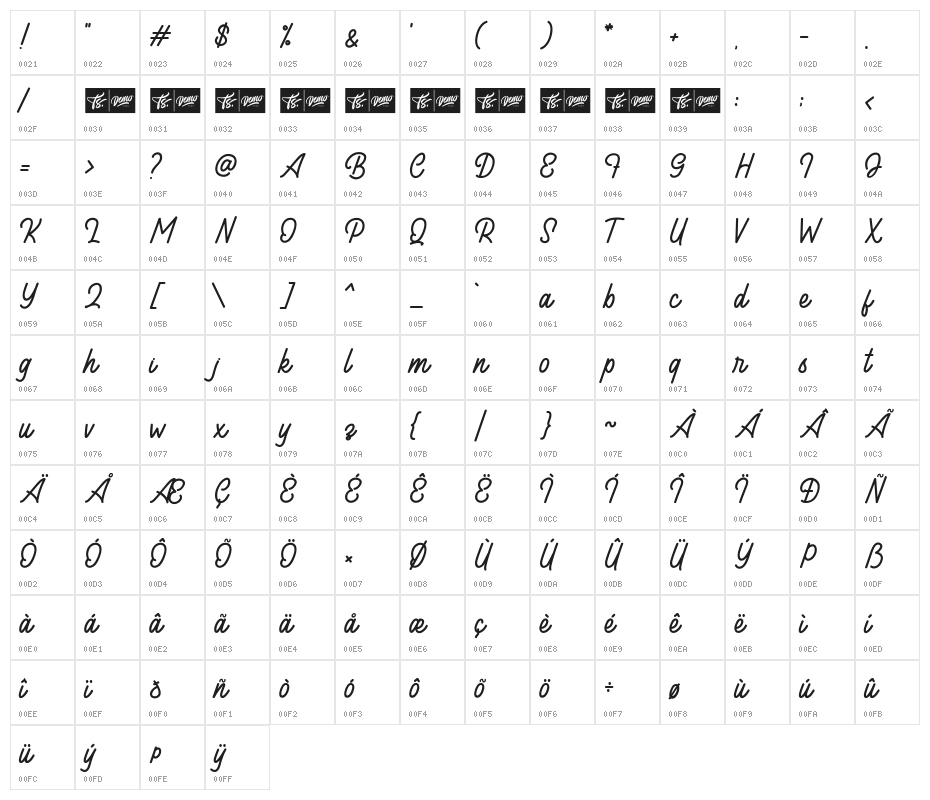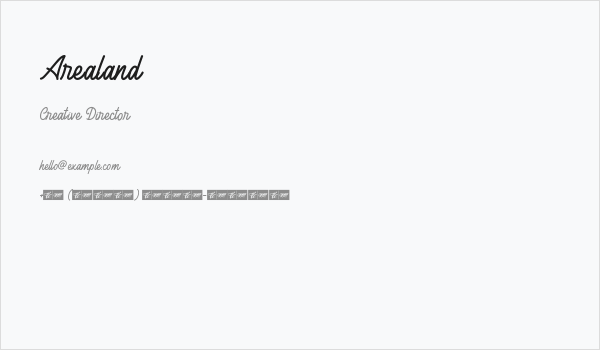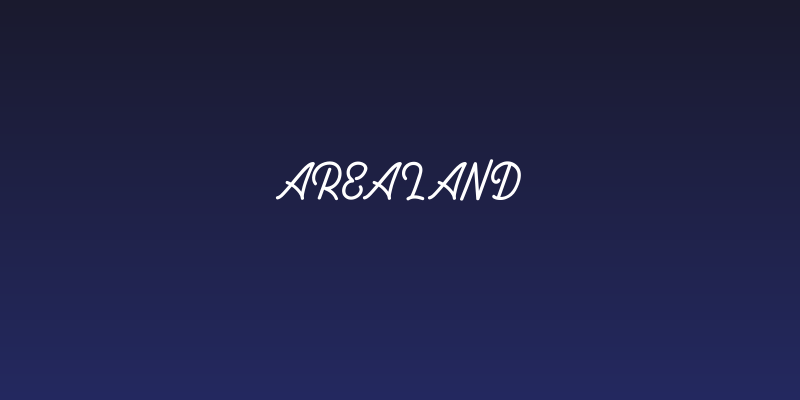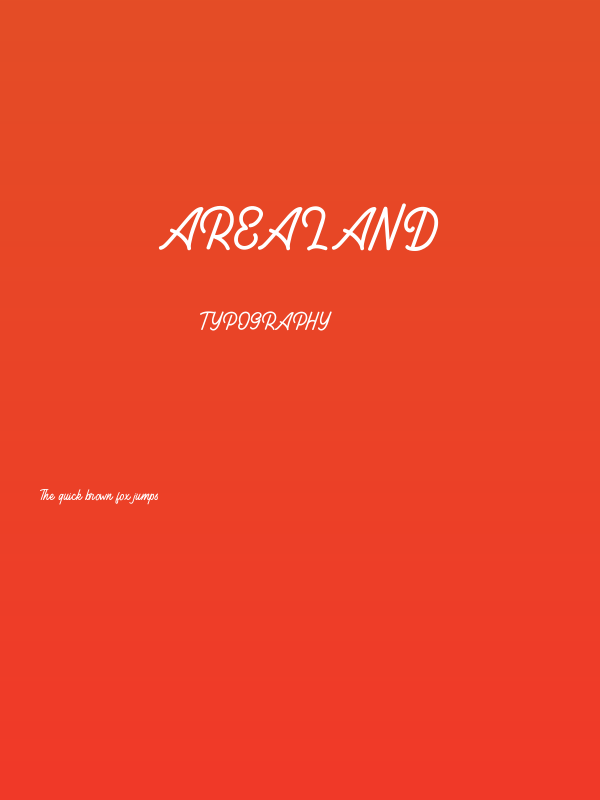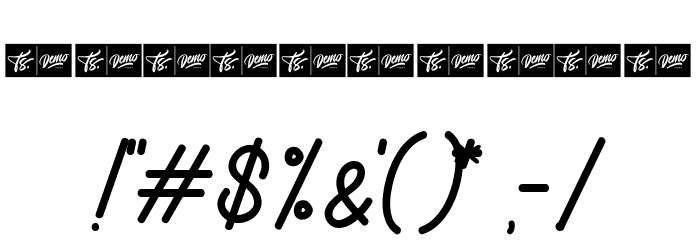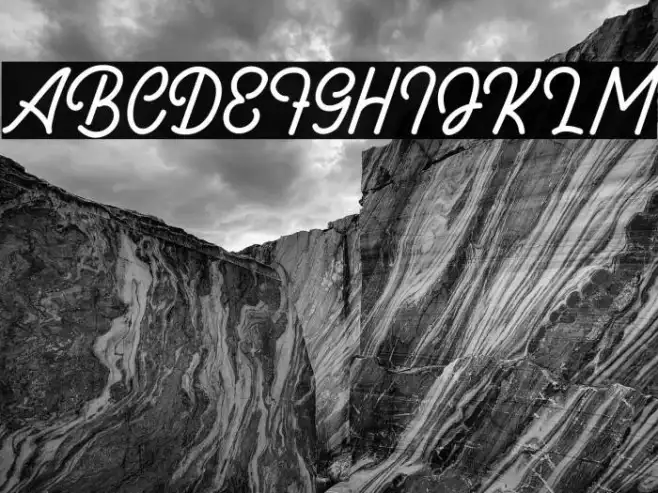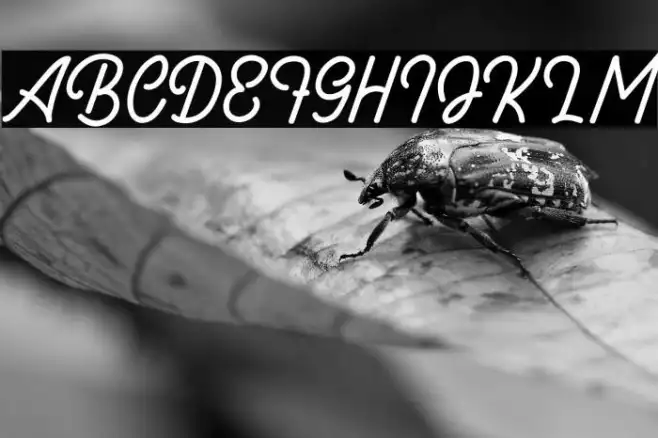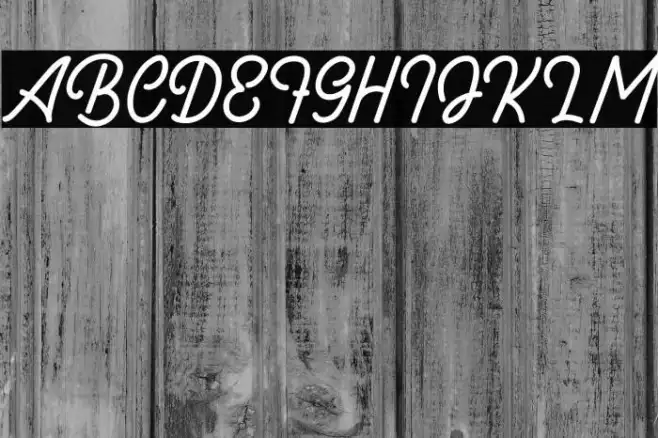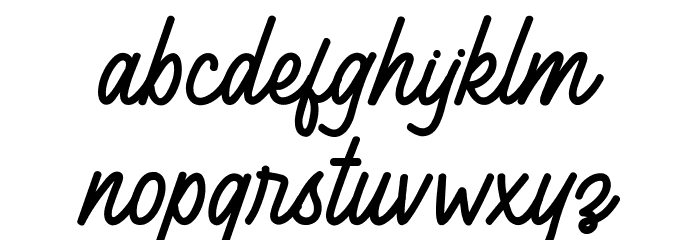
Arealand Font
Arealand Description
This font features a fluid, cursive style with elegant, flowing lines that give it a sophisticated and artistic appearance. The uppercase letters are slightly more ornate, with graceful curves and loops, while the lowercase letters maintain a consistent, smooth flow. The font has a handwritten quality, making it feel personal and inviting. The characters are well-spaced, ensuring readability while maintaining the script's natural flow. The special characters are designed to match the overall style, adding a cohesive look to any text. This font is ideal for projects that require a touch of elegance and personality.
| Proposed Projects | Ideal for wedding invitations, greeting cards, personal branding, and elegant logos. |